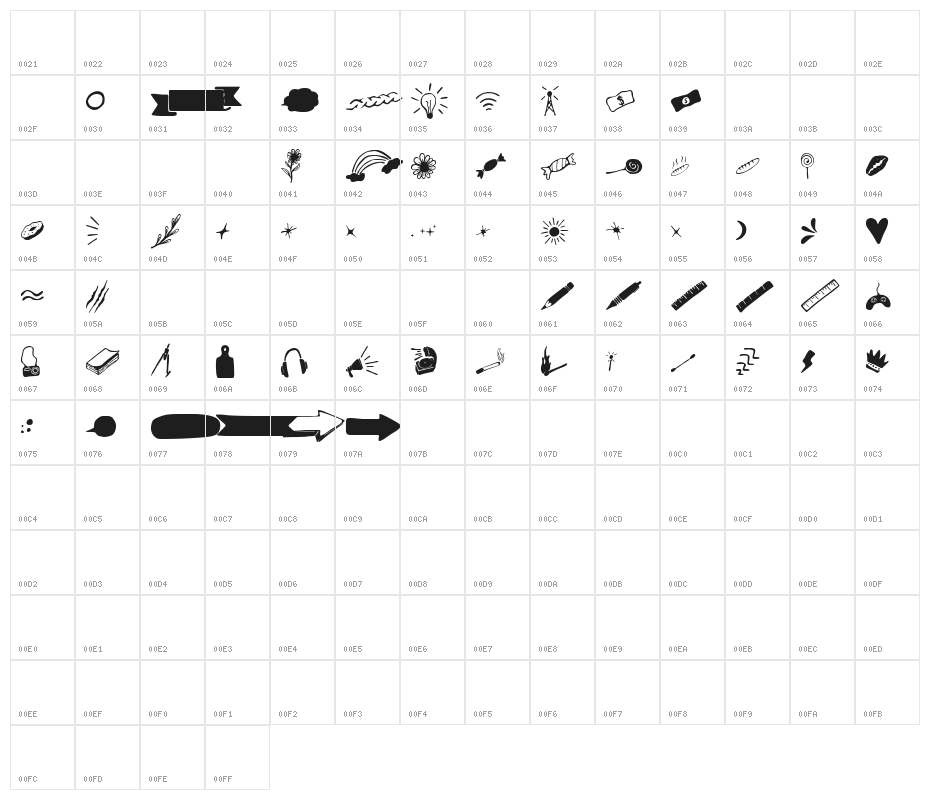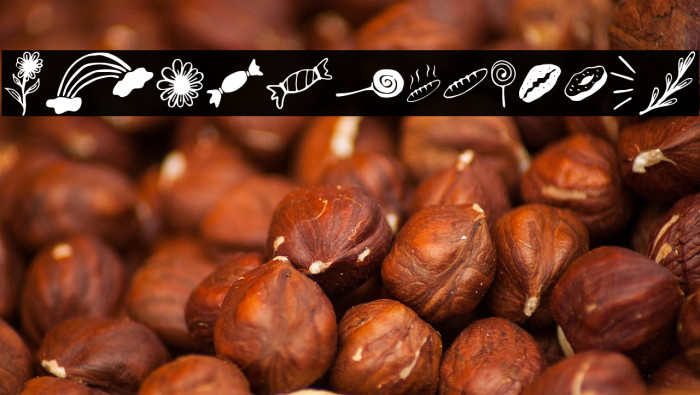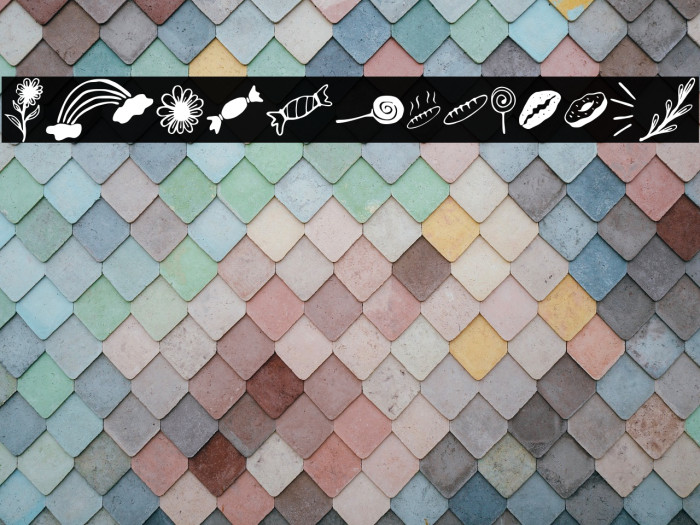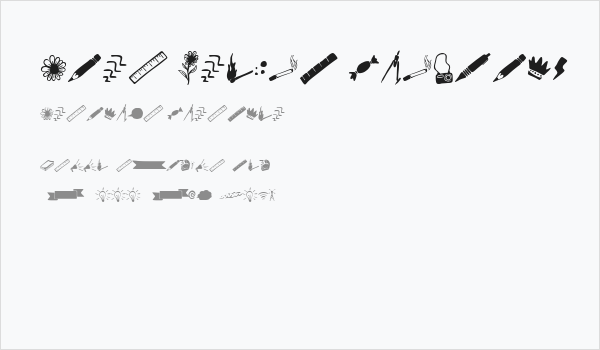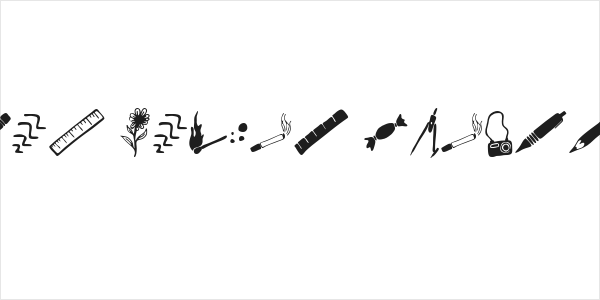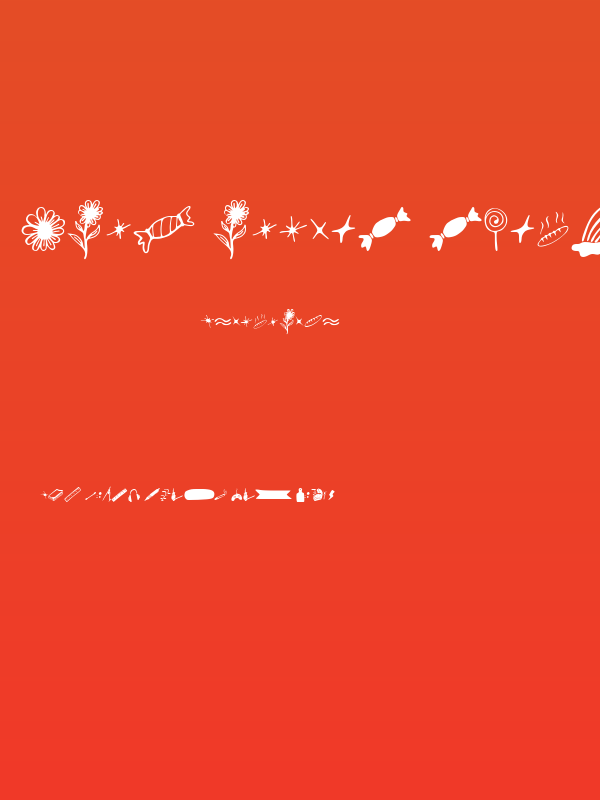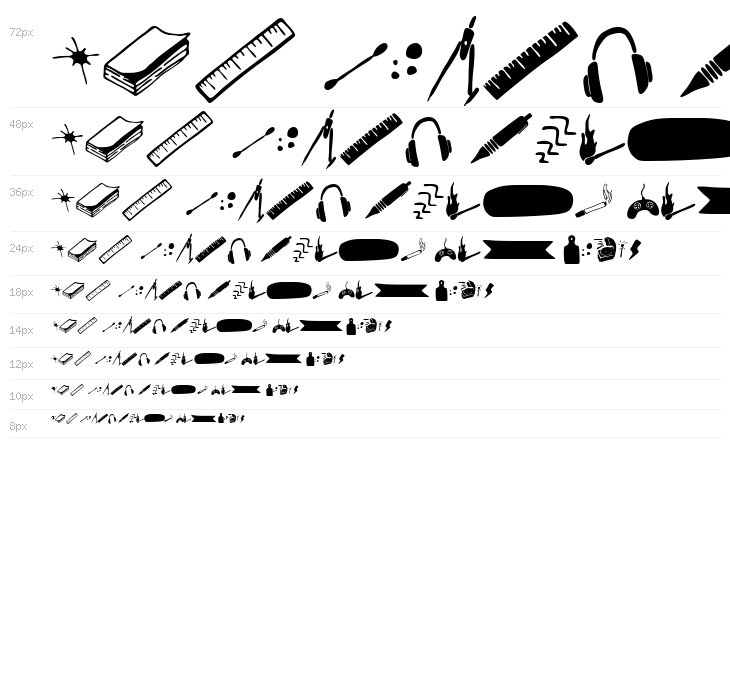
Care Around Dingbats Font
Care Around Dingbats Description
This collection features a playful and whimsical set of dingbats, each symbol capturing a unique and imaginative design. The icons range from nature-inspired elements like flowers and rainbows to everyday objects such as pens, rulers, and headphones. The style is bold and expressive, with a hand-drawn aesthetic that adds a personal touch. The symbols are diverse, including celestial motifs like stars and moons, as well as playful elements like candies and game controllers. This set is perfect for adding a creative flair to any project, offering a wide variety of symbols that can be used to convey different themes and ideas.
| Overall Style | Playful, Whimsical, Hand-drawn |
| Use Case | Decorative elements, Creative projects, Educational materials |
| Proposed Projects | Ideal for creative projects such as scrapbooking, greeting cards, educational materials, and decorative designs. |